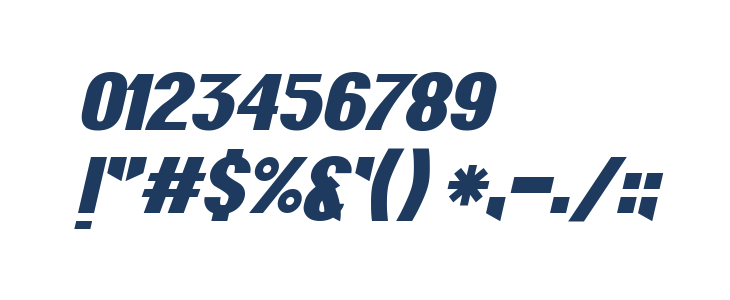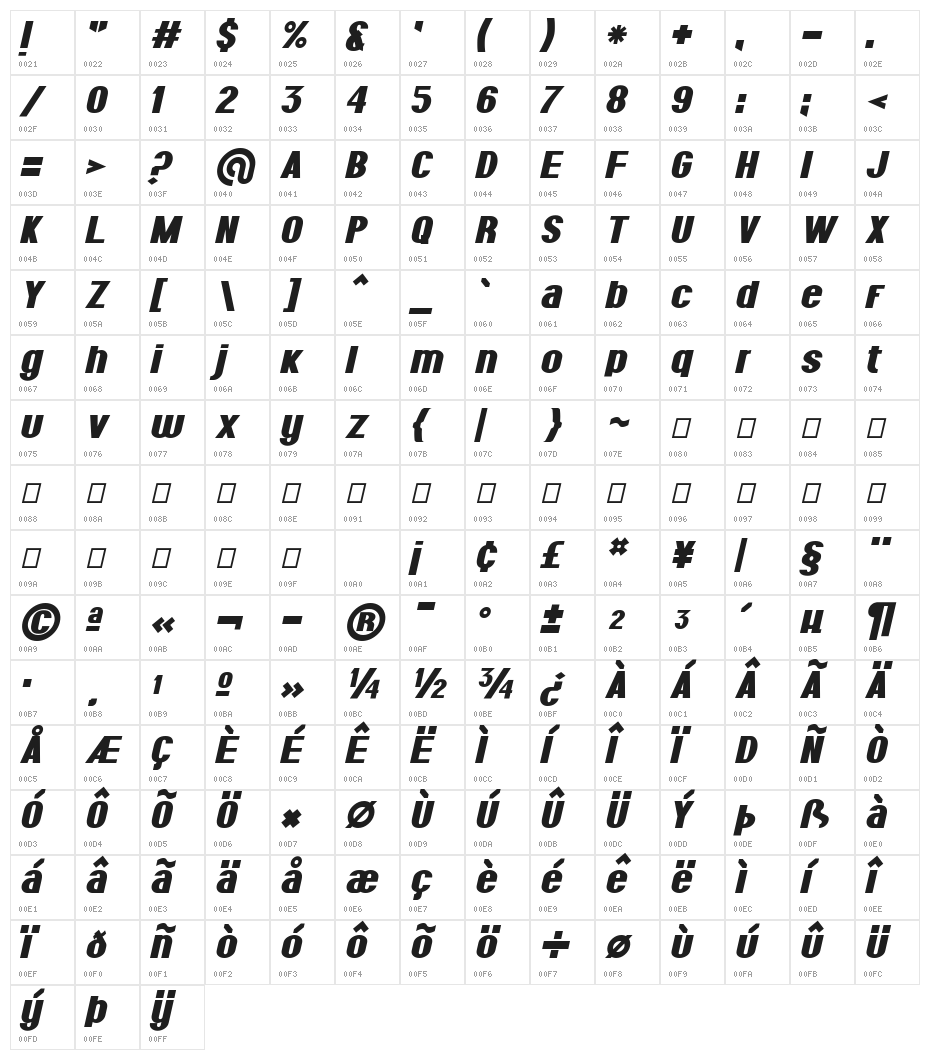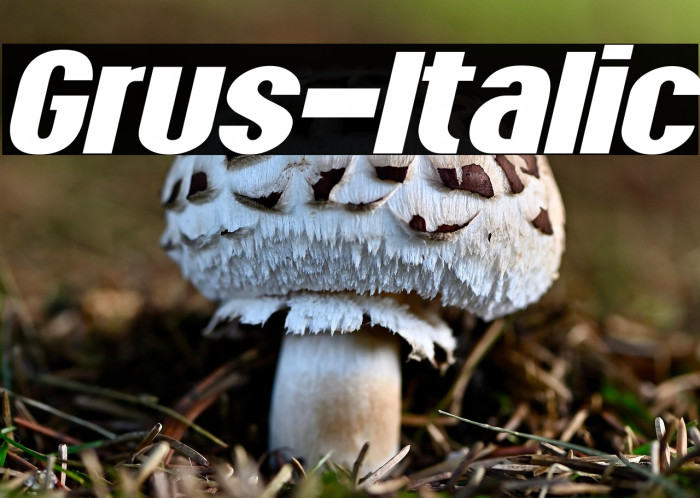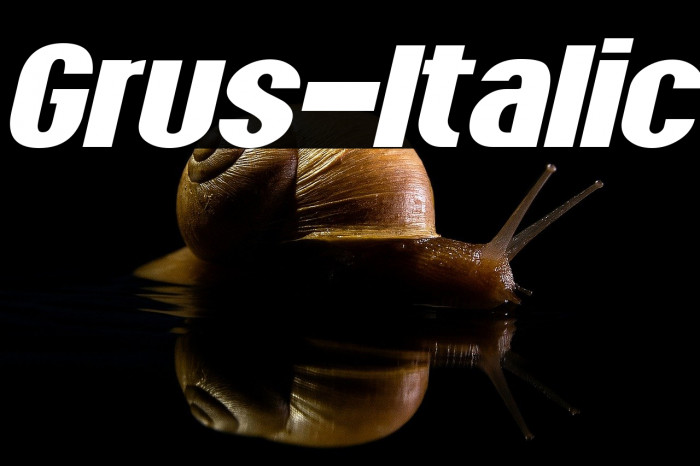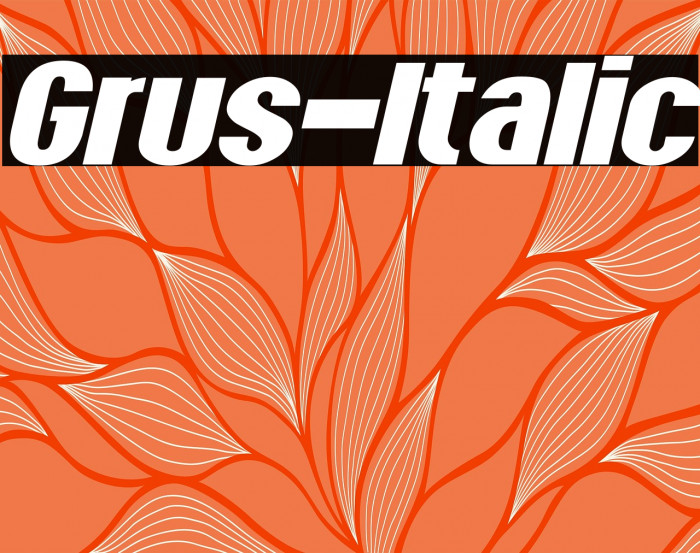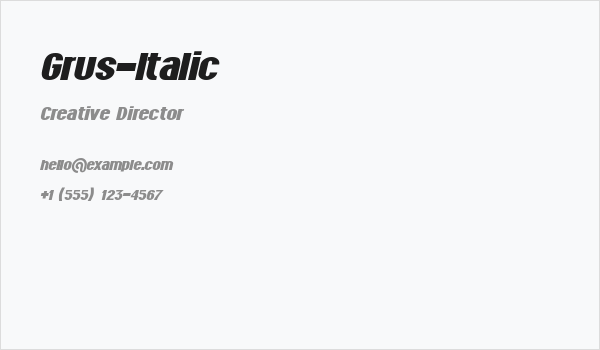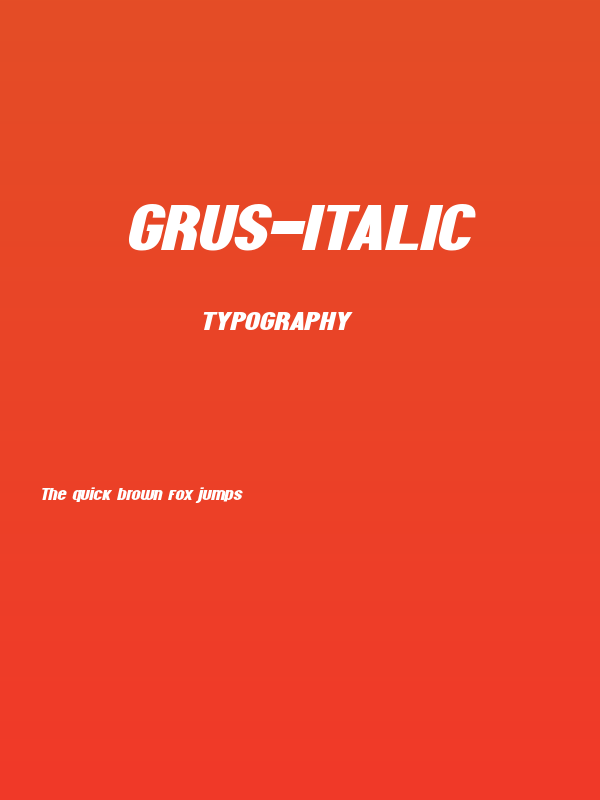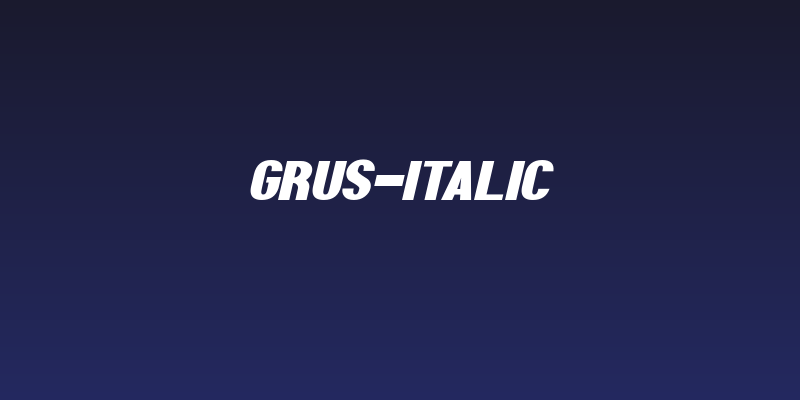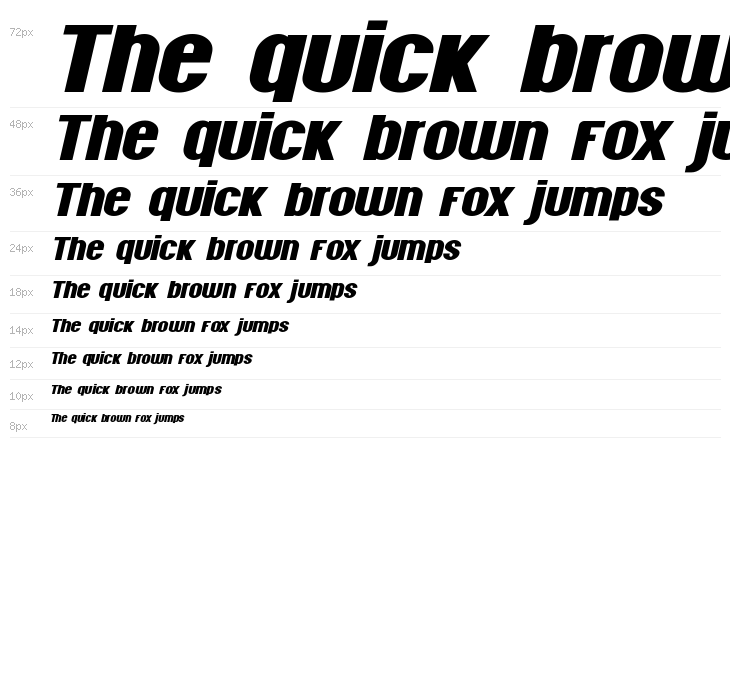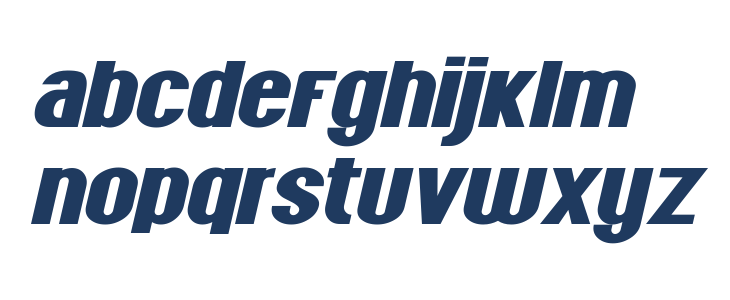
Grus-Italic Font
Grus-Italic Description
This font features a bold and dynamic style with a strong italic slant, giving it a sense of motion and energy. The characters are robust and thick, providing excellent readability and impact. The uppercase and lowercase letters maintain a consistent weight, ensuring uniformity across the text. The numerals and special characters are designed to match the boldness of the alphabet, making them suitable for various applications. The overall design is modern and assertive, making it ideal for attention-grabbing headlines and branding.
| Proposed Projects | Ideal for headlines, posters, branding, and advertising where a strong, impactful presence is needed. |